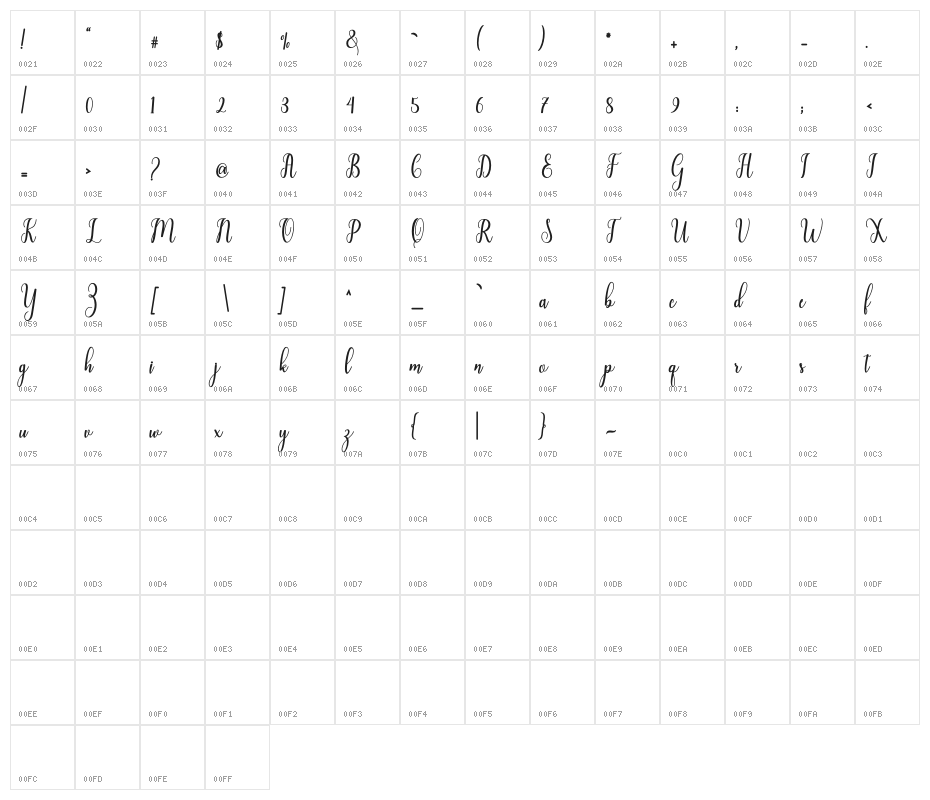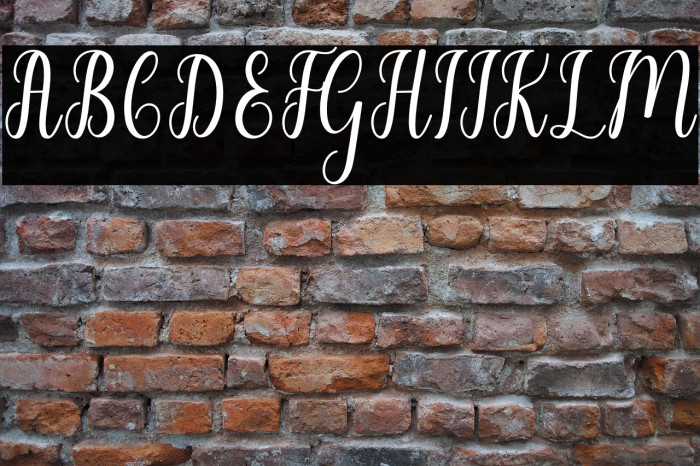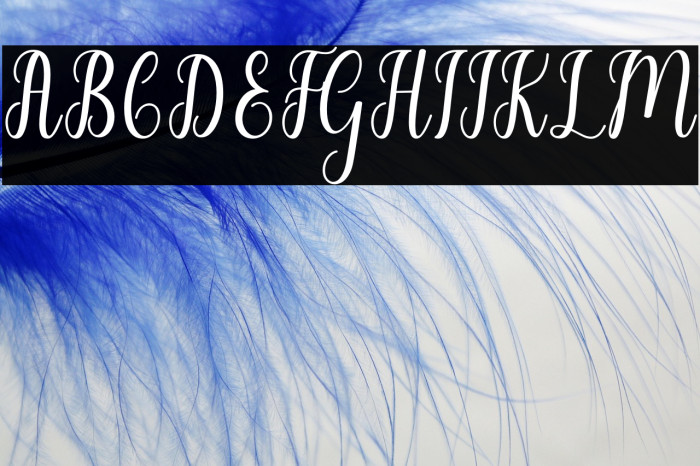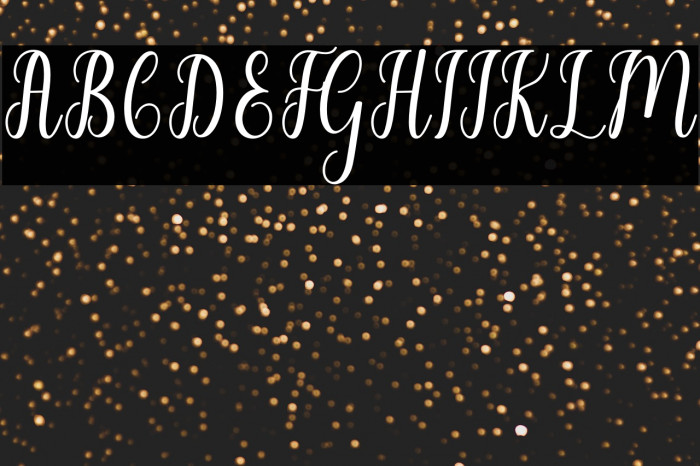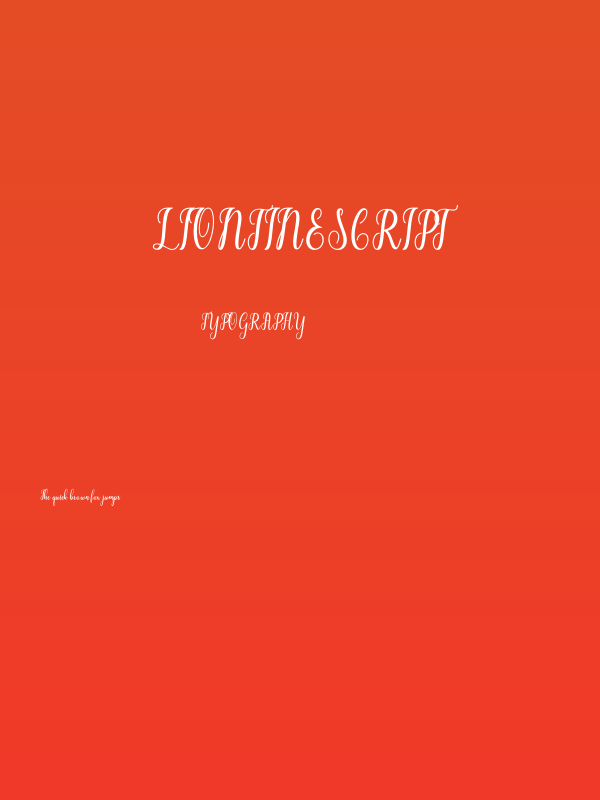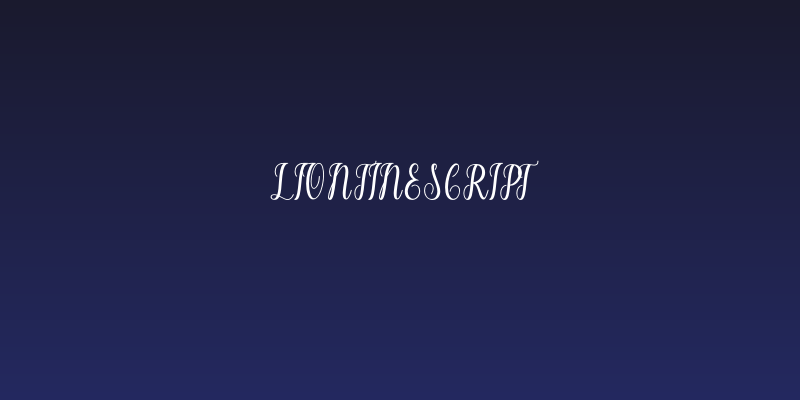
LiontineScript Font
LiontineScript Description
This elegant script font features a flowing, cursive style with high contrast between thick and thin strokes. The uppercase letters are tall and graceful, with sweeping curves and loops that give a sense of movement and sophistication. The lowercase letters maintain a consistent style, with elongated ascenders and descenders that enhance the font's fluidity. The numerals are designed to match the overall aesthetic, with similar stroke contrasts and curves. Special characters are included, maintaining the same elegant and decorative style, making this font versatile for various design needs.
| Overall Style | Elegant |
| Use Case | Logos, Invitations, Decorative text |
| Proposed Projects | Ideal for wedding invitations, elegant branding, greeting cards, and luxury packaging. |